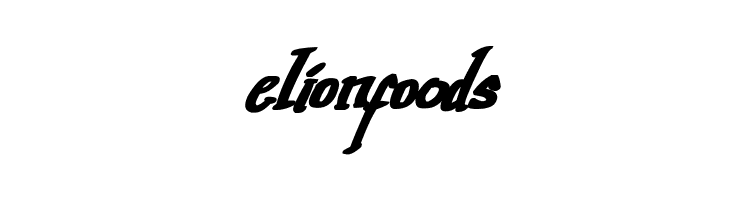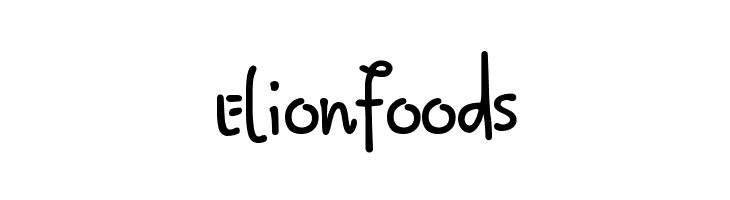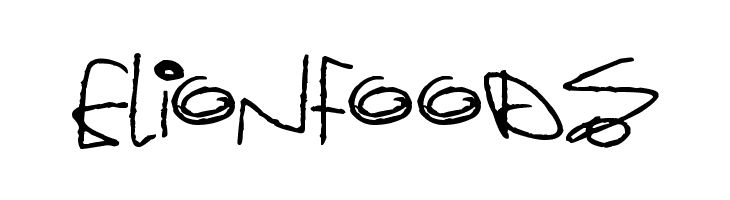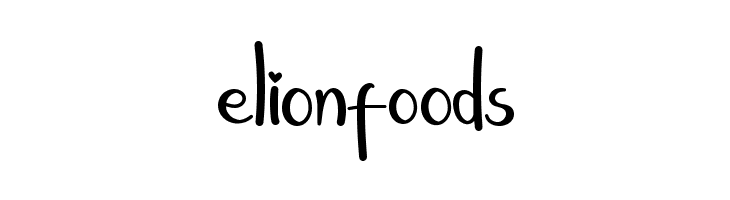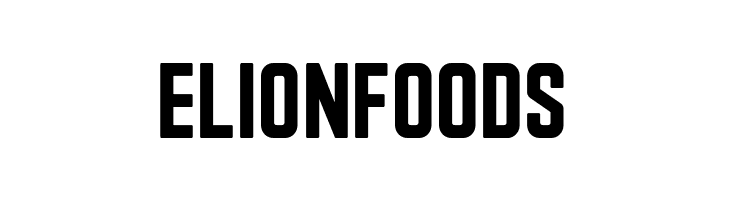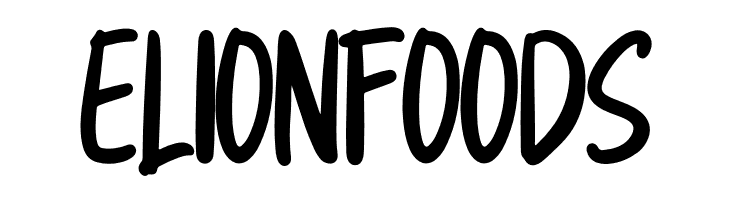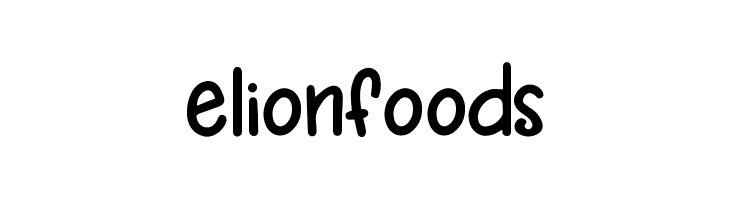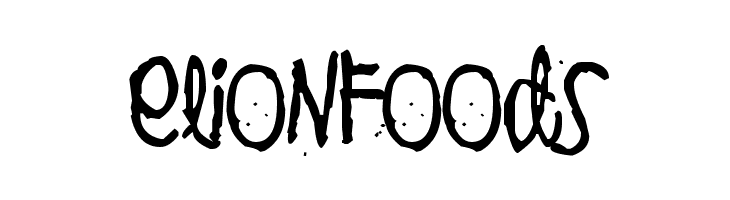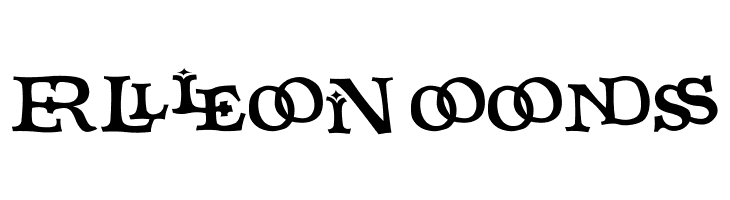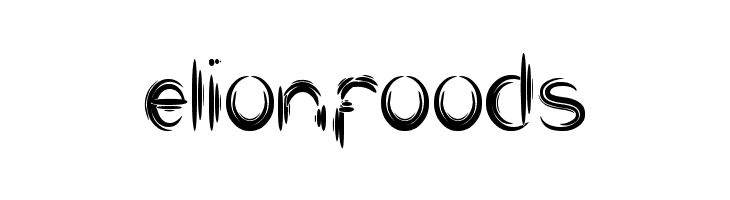
A bold, playful font with an organic, hand-drawn appearance.
A bold, splatter-effect decorative font with a playful and artistic style.
A bold, spiky font with a punk-inspired, rebellious aesthetic.
A bold, jagged font with a punk-inspired design, perfect for energetic and rebellious projects.
A hand-drawn, artistic font with a whimsical and playful style.
A playful, handwritten font with tall, narrow characters and a whimsical style.
A playful, rounded font with smooth curves and consistent stroke width.
A playful, handwritten font with smooth curves and a casual style.
A bold, modern font with block-like characters for impactful designs.
A playful, casual handwritten font with smooth, flowing lines.
A futuristic font with dynamic lines and a modern, energetic style.
A dynamic, futuristic font with fragmented strokes and a sense of movement.
A bold, dynamic font with a slight slant, offering a modern and energetic look.
A playful, elegant cursive script with interconnected, flowing strokes.
A refined, high-contrast typeface with elongated strokes and elegant curves.
A playful, rounded font with a hand-drawn feel and consistent bold weight.
A playful, hand-drawn uppercase font with a quirky and whimsical style.
An edgy, thorn-like decorative font with sharp, jagged strokes.
A playful and decorative font with bold, whimsical characters.
A bold, playful font with rounded, exaggerated shapes for a whimsical appearance.
A bold, handwritten font with a casual and dynamic style.
A bold, geometric font with a futuristic and technical design.
A bold, geometric font with a modern and impactful design.
A modern geometric font with rounded and angular elements, offering a clean and creative style.
Playful, rounded sans-serif with a handwritten style.
A hand-drawn, textured font with a rustic and organic feel.